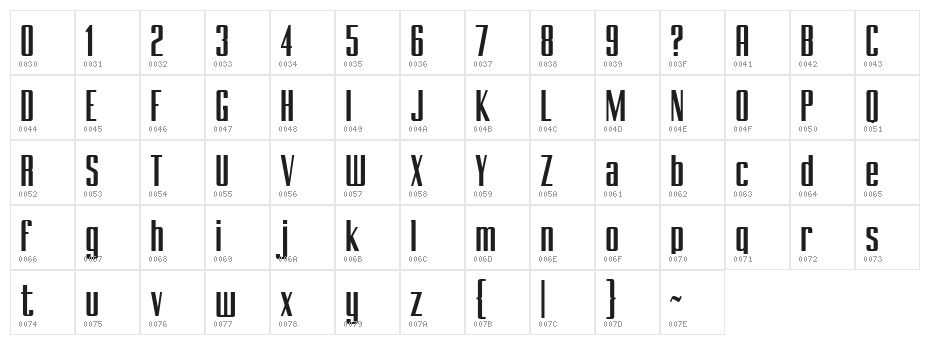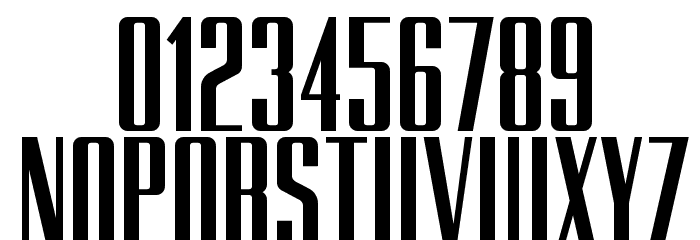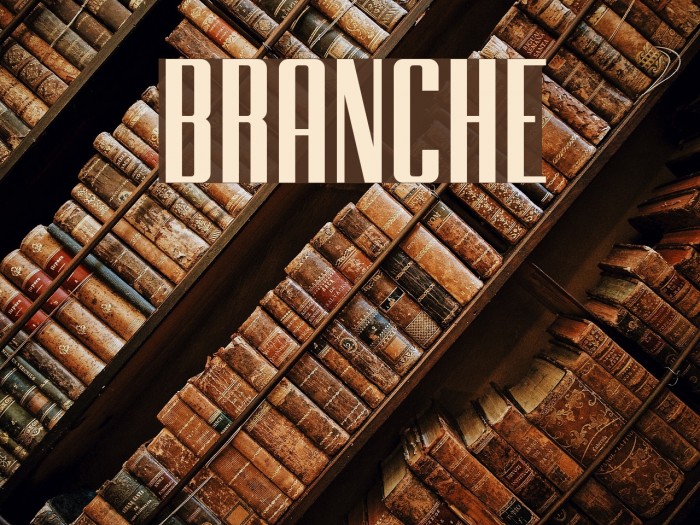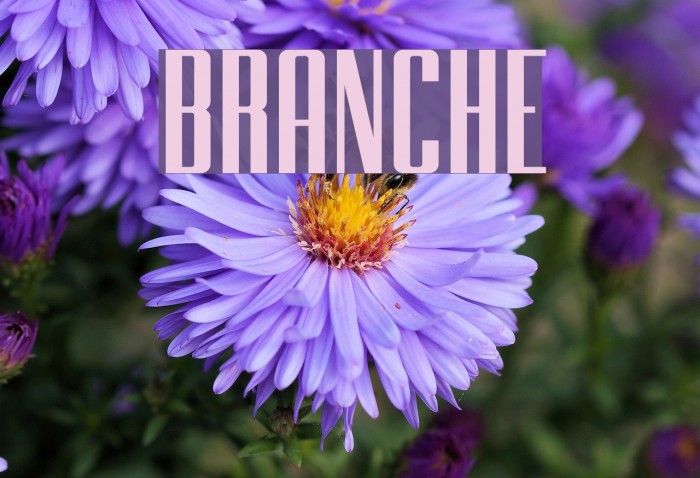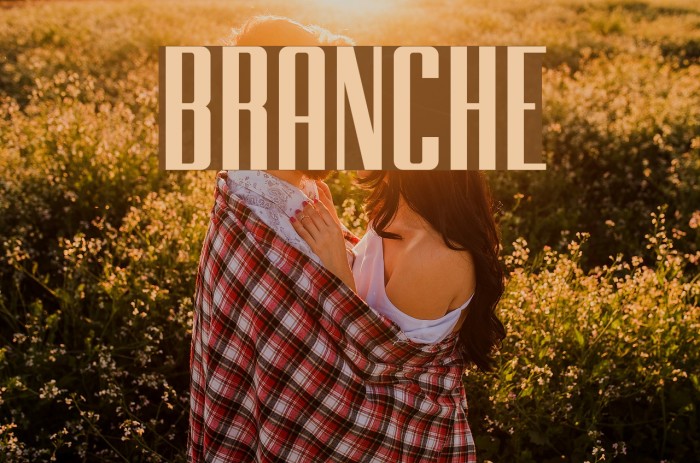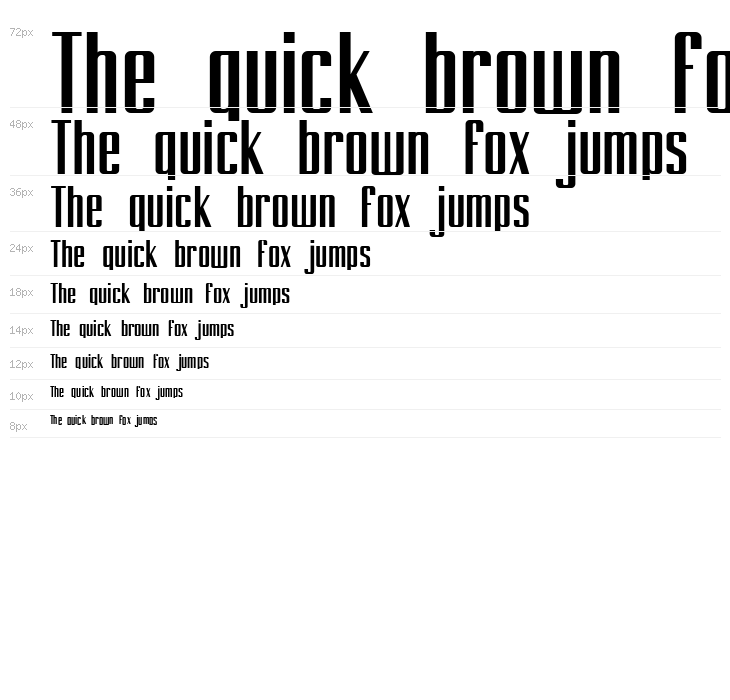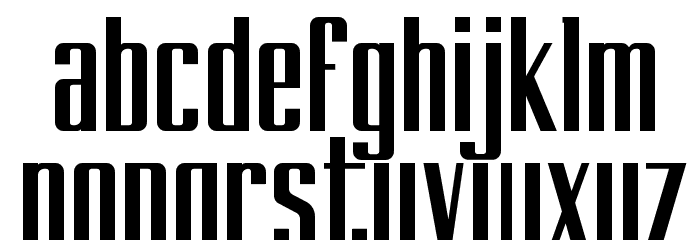
BRANCHE Font
BRANCHE Description
This typeface exhibits a bold and condensed style, characterized by tall, narrow letters with a strong vertical emphasis. The uppercase and lowercase letters maintain a consistent height, contributing to a uniform appearance. The numerals are similarly styled, ensuring cohesive integration with the alphabet. The font's sharp edges and clean lines give it a modern and assertive look, making it suitable for impactful headlines and titles. The spacing between characters is tight, enhancing the condensed nature of the typeface. The overall design is sleek and contemporary, with a high contrast in stroke thickness that adds to its striking visual appeal.
Typo Bureau Studio - TypoBureau Studio
| Proposed Projects | Ideal for branding, advertising, posters, and editorial headlines. |